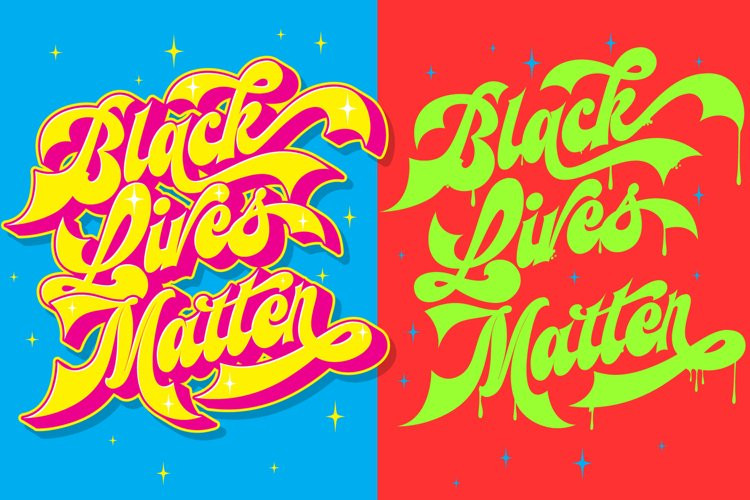
Lettro Font
Lettro FontMake your own retro design with Lettro Font!
Lettro is an exquisite bold script typeface inspired by the retro design from 70-80-ish.
Lettro is created with a ton of stylistic alternates, swashes, and ligatures, and also comes with 5 total Layered fonts: Regular, Extrude, Extrude Outline, Double Extruded, and Double Extruded Outline. Perfect fitted layer to give you more contrast, more bold look of the title. Every glyph for alternates is curated for the best and possible without eliminating the characteristic of these fonts!